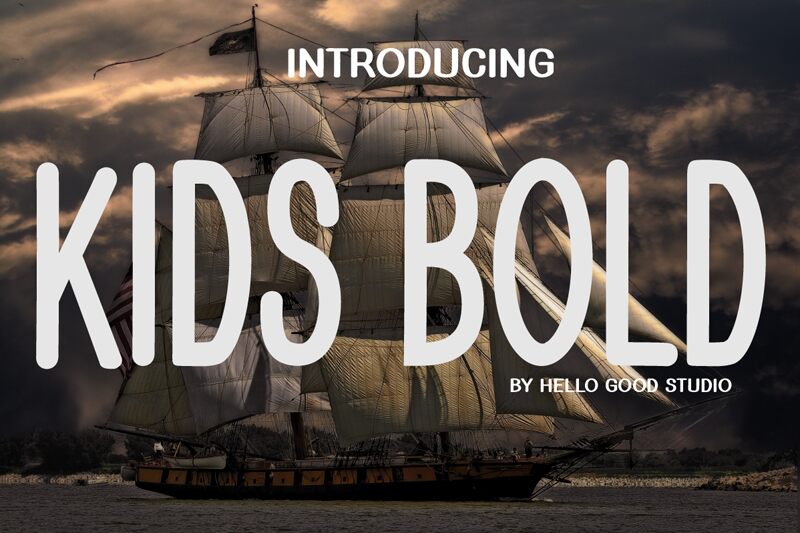
Kids Bold
Kids Bold font, designed by Rachmad Bagus F of Hallo Good Studio, embodies a playful and whimsical spirit that's perfect for children's projects or any design aiming to evoke joy. Its cartoon style radiates charm, featuring lively curves and ample spacing that invite engagement. The bold presence of each character commands attention, ensuring that your message stands out with a friendly demeanor.
This font excels in vibrant applications like party invitations, educational materials, or merchandise aimed at younger audiences. Its energetic aesthetic not only captures the essence of childhood but also enhances readability, making it ideal for both headlines and body text where fun is key. Kids Bold transforms any design into an exciting visual journey that sparks imagination and enthusiasm.